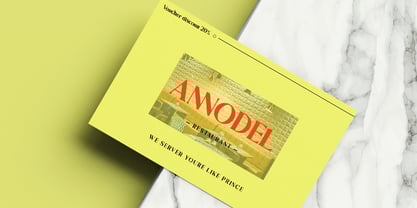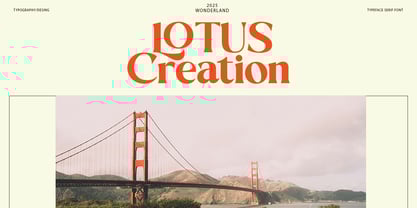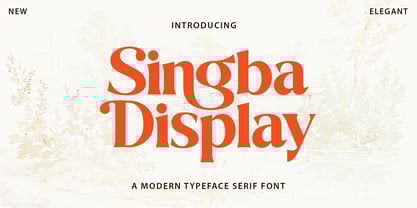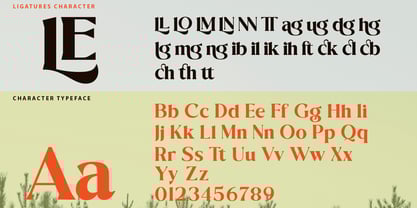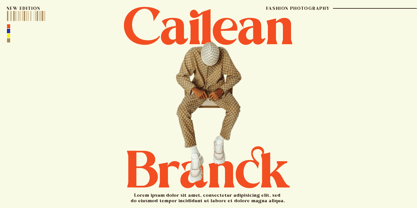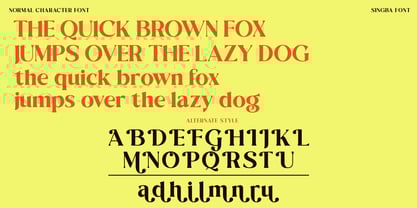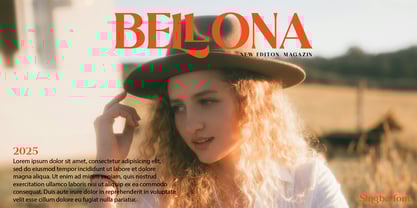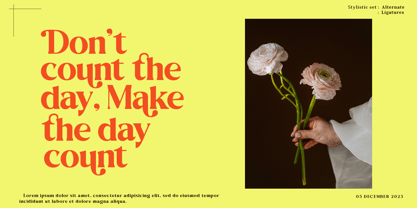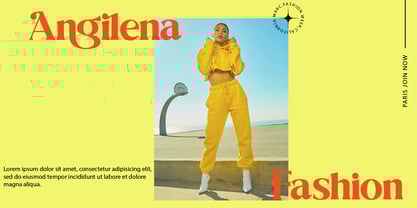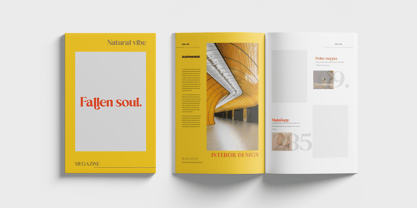
Singba Display
The Singba Display Font Family was designed by Jumm ati and published by Masa Type. Singba Display contains 3 styles and family package options. More about this family
Singba Display is a soft vintage serif font packed in a modern and classy style, complete with access to OpenType features to access a large selection of alternate letters and ligatures, choose the letters you like from the uppercase and lowercase variations to get a luxurious and elegant look.
Singba Display Perfect for branding projects, Logo design, Apparel Branding, packaging, magazine titles, advertisements, T-shirts, postcards and more.